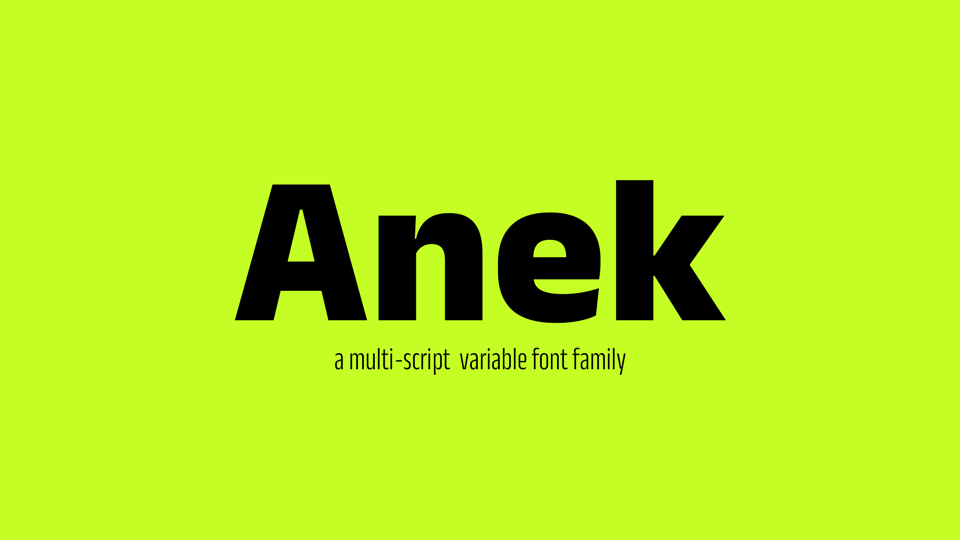
Download Anek typeface, a variable sans serif font family which supports nine Indian scripts plus Latin in weight and width axes. Anek meets the demands of the modern multiscript page with its confident and contemporary design.
Designer: Ek Type